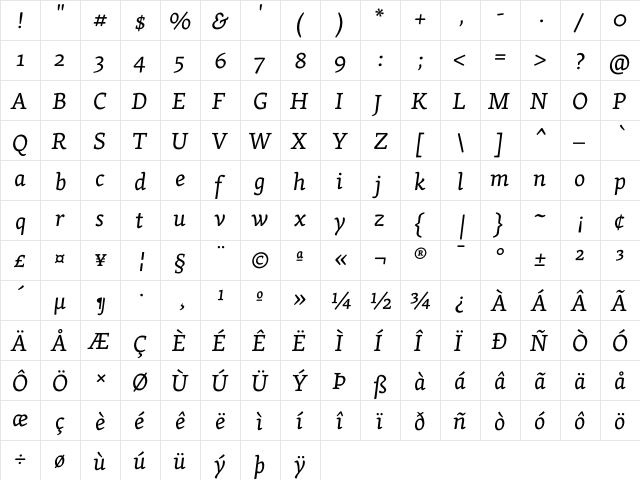
Skolar OT Italic
Design Context for Skolar OT Typeface
Skolar OT is a composed and adaptable typeface that performs quietly and consistently across a wide range of design contexts. Its italic angle brings a sense of urgency and motion to the letterforms.
Pro Tip: Use Skolar OT for emphasis, pull quotes, and subheadings where its slanted energy can add rhythm to the layout.